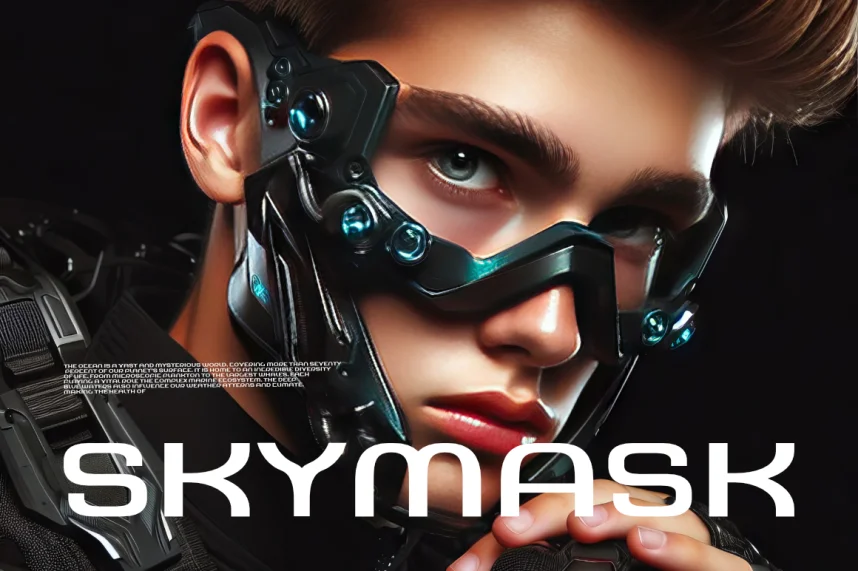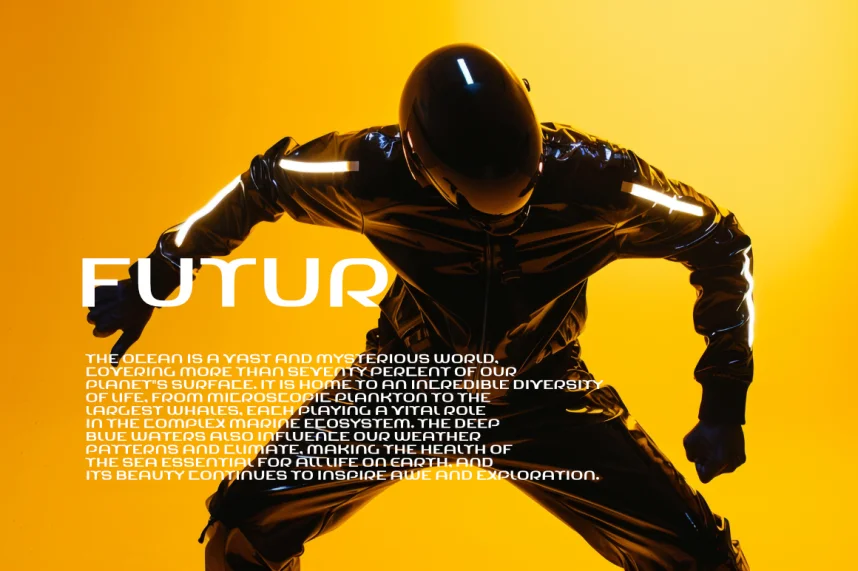
Bedafutr Font is a geometric sans-serif typeface designed for clear, minimal, and modern digital and print applications. It solves design challenges related to legibility and consistency in bold, technical layouts.
This typeface features open counters, uniform stroke widths, and simple, geometric letterforms. It supports multiple weights and includes stylistic alternates to maintain flexibility across web design, branding, and UI projects. Bedafutr conveys a futuristic yet readable impression.